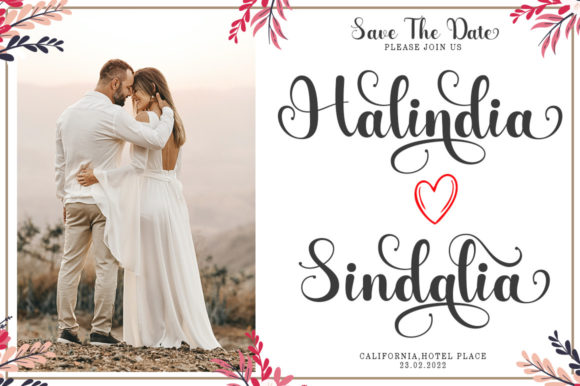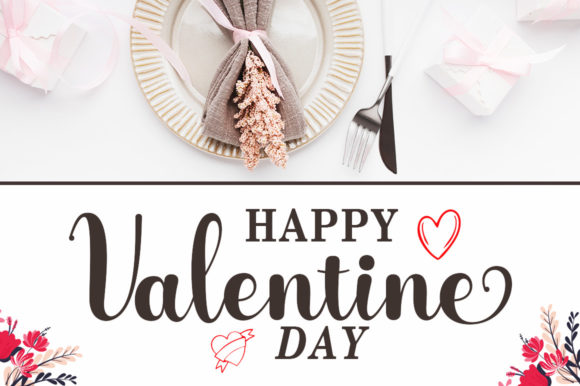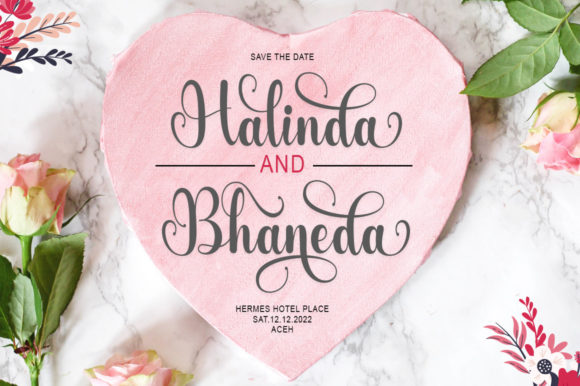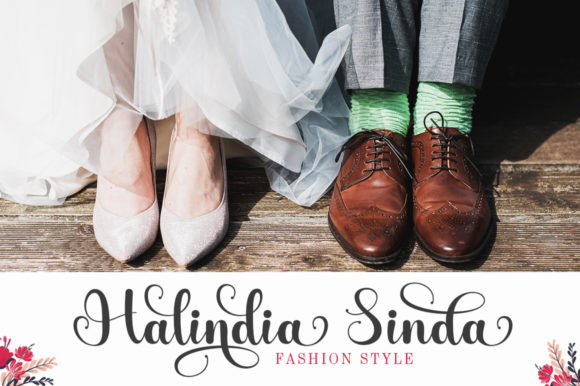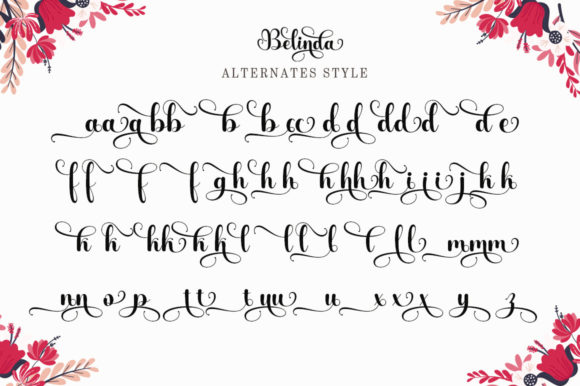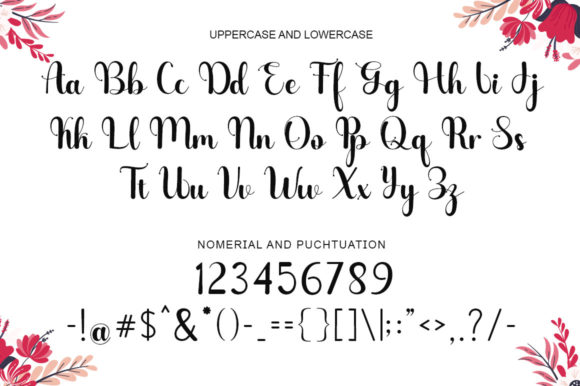
As a designer, there’s nothing quite like the thrill of finding the perfect font for your next project. You’ve spent hours browsing through font collections, and finally, you stumble upon that one font that makes your design come alive. For me, that font is Hello Belinda, a beautiful and timeless handwritten font that has captured my heart.
Hello Belinda Font is more than just a pretty face; it’s a valuable tool for designers looking to create attractive logos, branding, and quotes. Its PUA encoding makes it easy to access all glyphs and swashes, giving you endless possibilities for customization. With Hello Belinda Font, you can add a personal touch to your designs and make them truly unforgettable.
Hello Belinda Font Key Features
- Unique Characteristics: Hello Belinda Font features a unique, elegant script style with flowing connections and subtle flair, making it perfect for creative and artistic applications.
- Language Support: The font includes support for a wide range of languages, including Latin, Cyrillic, and Greek alphabets, as well as many non-Latin scripts.
- Style Options: Hello Belinda Font comes in a variety of styles, including regular, bold, italic, and bold italic, giving you plenty of options for customizing your text.
Hello Belinda Font Review
Overall, I have mixed feelings about the Hello Belinda font. On one hand, I appreciate its ✨ elegant and refined appearance, which makes it perfect for creating a sophisticated and high-end look in various design projects. The font’s ✨ excellent legibility is also noteworthy, ensuring that the text remains clear and easy to read even at smaller font sizes.
Another positive aspect of Hello Belinda is its ✨ versatility, allowing it to be used in a wide range of applications, from fashion and lifestyle to beauty and wellness. The font’s ✨ beautiful script variations add an extra touch of elegance and sophistication to any design project.
- The font may not be suitable for ⚠️ informal or casual designs, as its refined and elegant appearance may not fit the tone of such projects.
- The font’s ⚠️ limited character set may be a limitation for designers who require a wider range of characters and symbols.
In conclusion, Hello Belinda is a beautiful and refined font that excels in creating high-end and sophisticated designs. However, its limitations should be considered when choosing this font for a specific project. I would recommend it for projects that require elegance and refinement, but not for more casual or informal designs.
Here are some tips for getting the most out of the “Hello Belinda Font”:
- Use it in combination with other elegant fonts for a sophisticated look.
- Use it for headings and titles to add a touch of elegance.
The “Hello Belinda Font” is commonly used for:
- Wed
Compared to Hello Belinda Font, Great Vibes Font has a more refined and polished look, making it suitable for more formal occasions. While Hello Belinda Font is more playful and whimsical, Great Vibes Font is more understated and sophisticated.
Compared to Hello Belinda Font, Carolyna Pro Font is more geometric and modern, making it suitable for a wide range of applications. While Hello Belinda Font is more ornate and decorative, Carolyna Pro Font is more straightforward and easy to read.